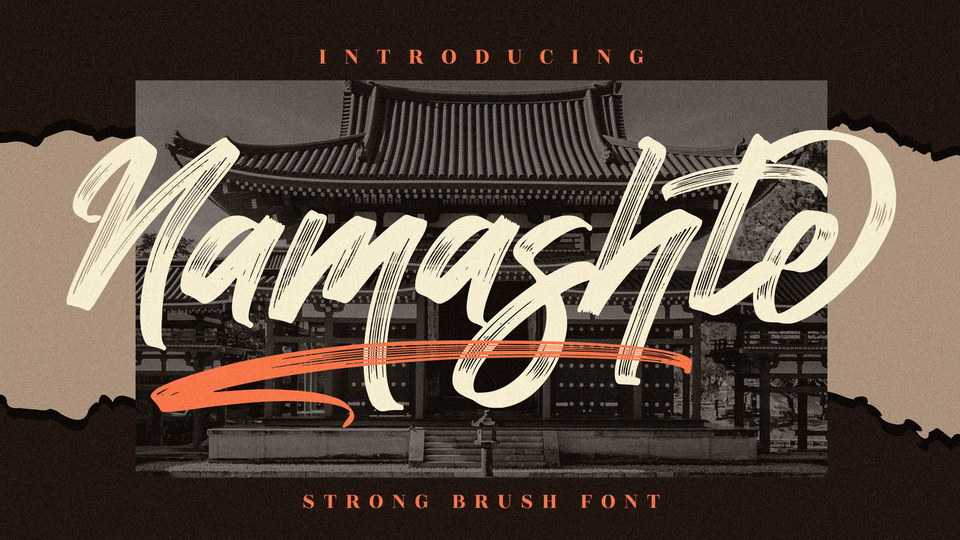
Download Namashte font, a modern and bold brushed script typeface. Namashte looks eye-catching on a variety of designs requiring a impact style, such as posters, ads, packaging, t-shirt prints and more.